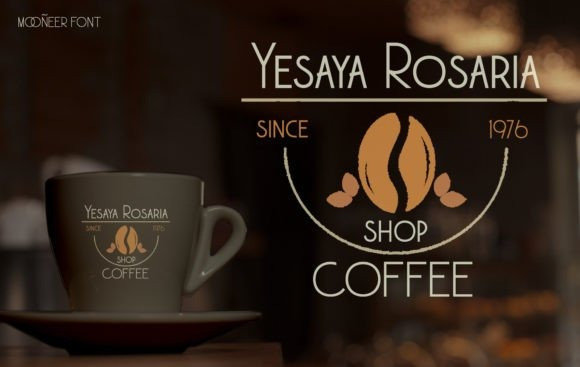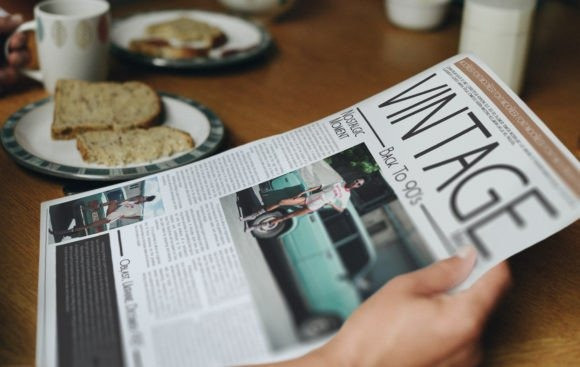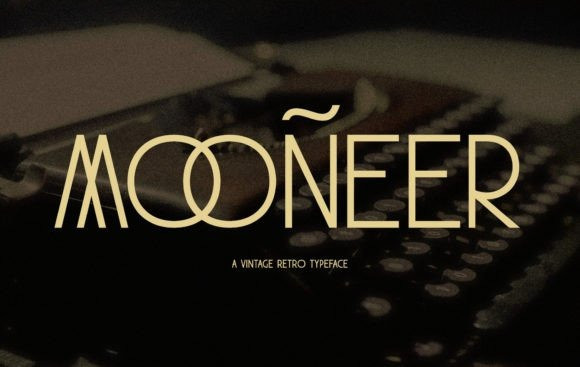
Mooneer Font
Mooneer Font is an elegant sans serif font that will bring your projects a touch of luxury and style. It’s the perfect match for logotypes, branding, wedding monograms and invitations, blog headlines, and much more. Flip through all the previews and get inspired by this font.